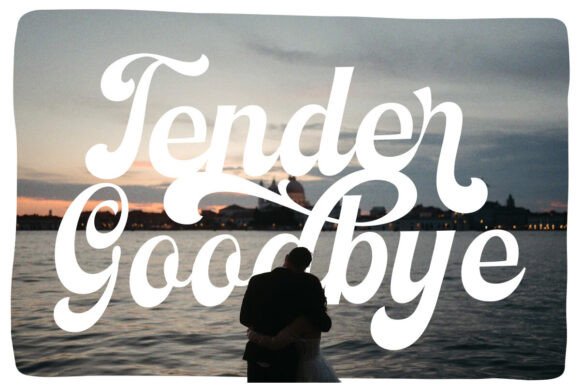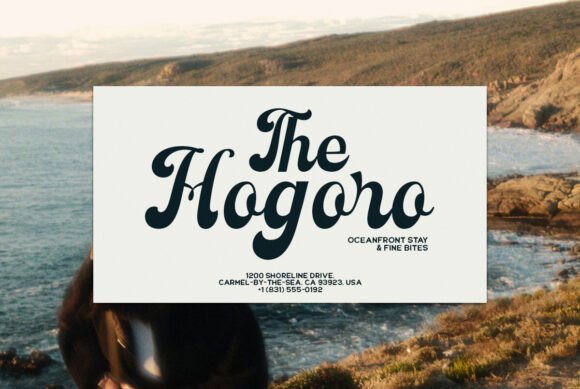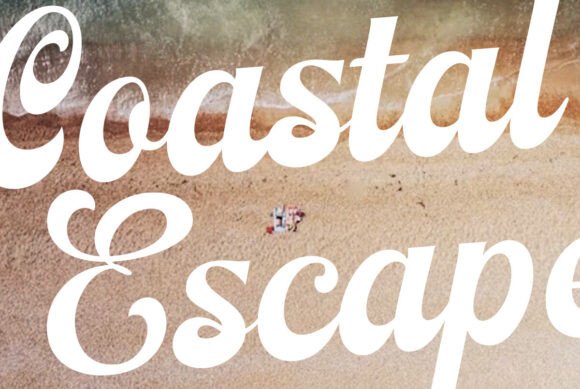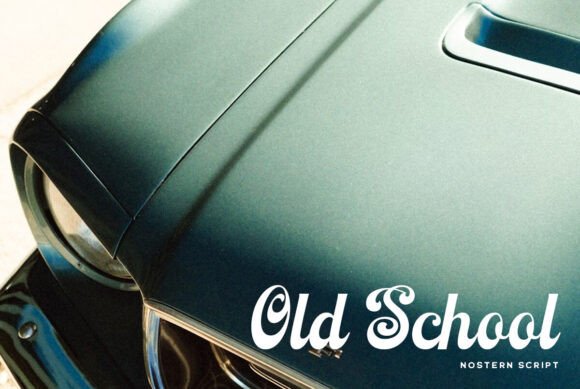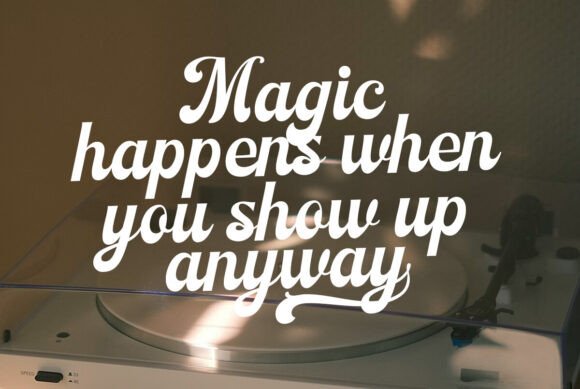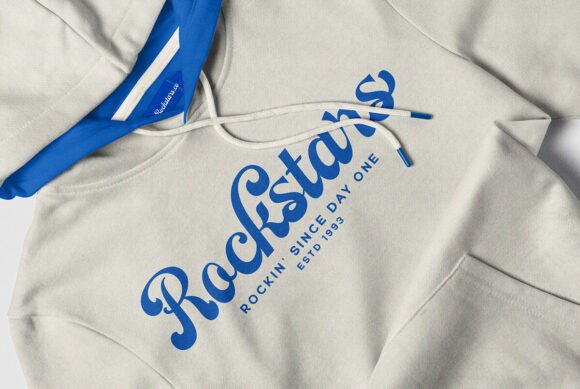
Introduction to Nostern Script Font
Nostern Script is a bold and expressive script typeface with a modern vintage aesthetic.
Featuring high contrast strokes, elegant swashes, and ornamental curls, this typeface offers a dramatic yet refined look that commands attention The strong vertical structure paired with whimsical, retro-inspired terminals makes it ideal for branding, editorial headlines, fashion logos, packaging, and poster design.